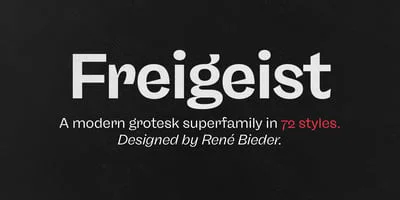
Freigeist Font
Freigeist Font is ideal for independent creative studios, alternative lifestyle brands, progressive cultural movements, free-thinking publications, artistic expression projects, innovative design agencies, and unconventional marketing campaigns.
What makes Freigeist Font exciting is its liberated spirit and independent creativity, featuring free-flowing letterforms that capture the essence of intellectual freedom while delivering authentic expression and progressive authenticity.
The Freigeist Font family includes Light, Regular, Medium, Bold, and Heavy weights, plus experimental variants and freedom-inspired alternates that enhance the font's independent character and creative possibilities.
Freigeist Font embodies the essence of intellectual liberation and creative independence through revolutionary typography design. This liberating typeface captures the free-spirited nature of independent thinking and progressive creativity, creating an authentic visual language that speaks to free-thinking individuals who value intellectual freedom, creative expression, and the courage to challenge conventional boundaries. The font's liberated character and independent appearance make it perfect for progressive organizations, creative collectives, and innovative brands that want to communicate authenticity, intellectual courage, and the transformative power of free expression.
Creative independents and progressive organizations consistently choose Freigeist Font for projects that require authentic creative credibility and free-spirited visual appeal. The typeface's liberated construction and independent personality make it exceptionally effective for alternative publications, creative studios, and progressive movements where intellectual freedom and authentic expression are paramount. Each character has been designed with independent precision to ensure authentic appeal across all creative applications and progressive environments.
The creative advantages of Freigeist Font extend beyond its independent appeal to include practical functionality for diverse progressive applications. The font maintains excellent readability in alternative settings while delivering the distinctive character that creates meaningful creative connections and resonates with audiences seeking authentic intellectual freedom. Its comprehensive character set includes progressive symbols and creative elements that make it particularly suitable for alternative documentation and independent communication.
Creative collectives, progressive publications, and independent organizations frequently incorporate Freigeist Font into their brand identity systems because of its ability to instantly convey creative authenticity and intellectual independence. The typeface's liberated aesthetic helps establish credibility in alternative creative markets while appealing to audiences who value free thinking, creative courage, and the authentic expression that comes from genuine intellectual freedom and progressive creative vision.